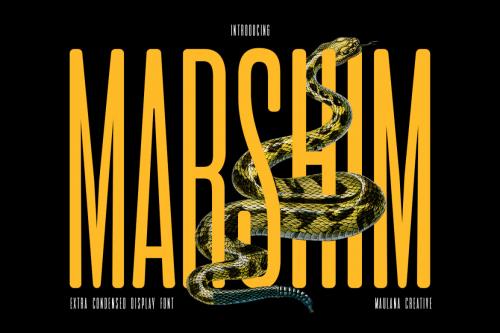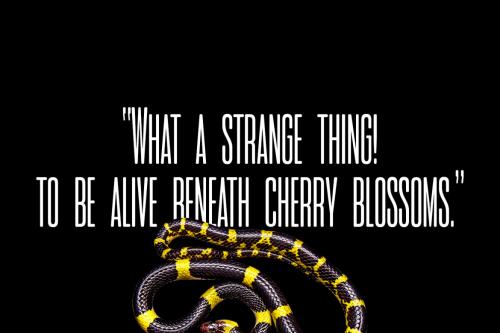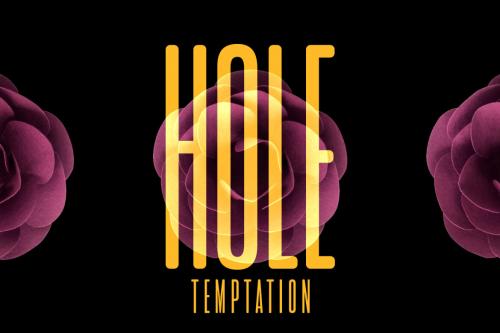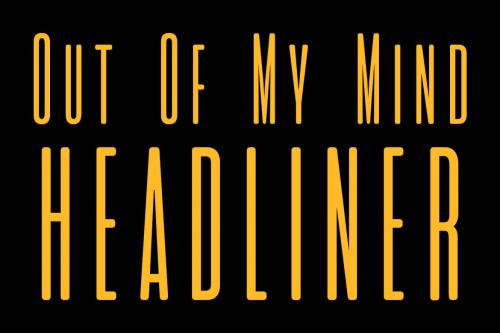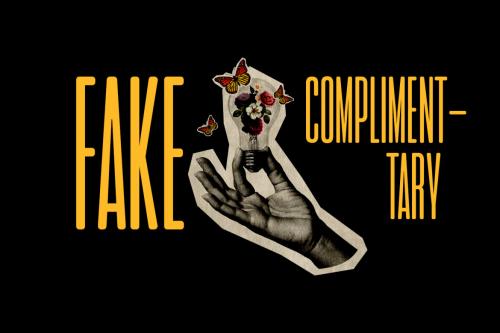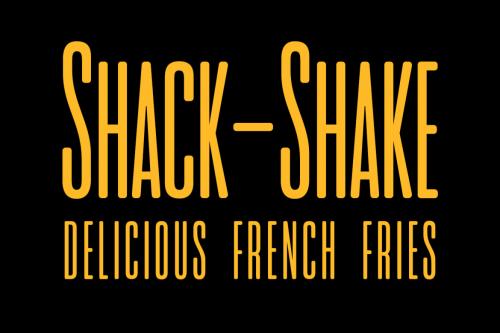
Marshim is a Condensed Display font. Regular stroke, fun character with a bit of ligatures and alternates. To give you an extra creative work. Marshim font support multilingual more than 100+ language. This font is good for logo design, Social media, Movie Titles, Books Titles, a short text even a long text letter and good for your secondary text font with script or serif. Make a stunning work with Marshim font.